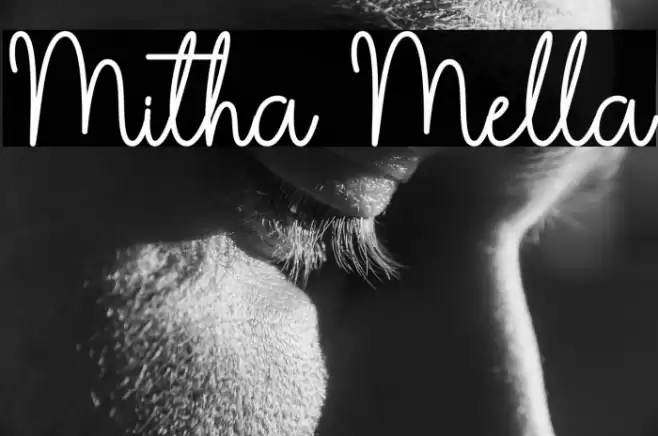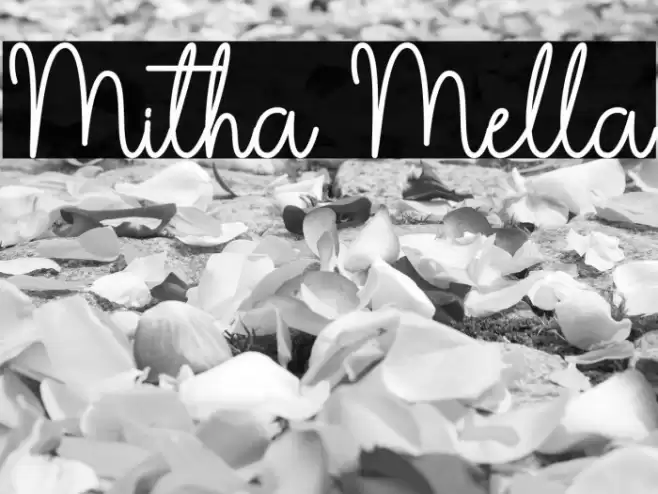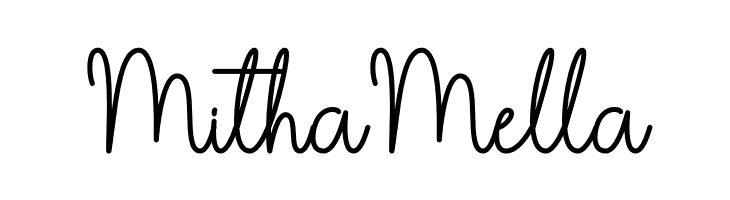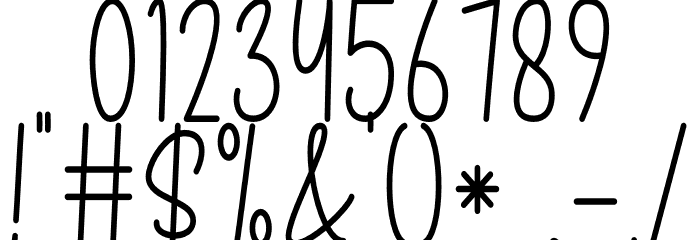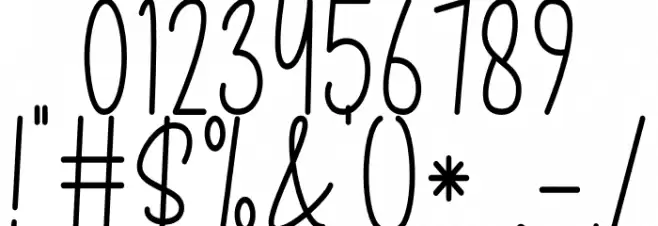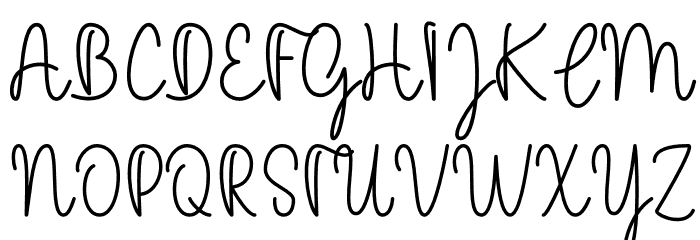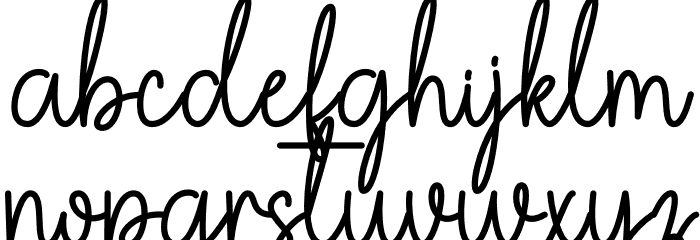
Mitha Mella Font
A playful, handwritten script font with tall, narrow letterforms and fluid, connected strokes. The characters have a casual, whimsical feel, with consistent stroke thickness and rounded terminals.
Tall, playful handwritten script with fluid connections from Uncategorized fonts.
- Proposed Projects: Greeting cards, invitations, social media graphics, branding for creative businesses, children's products.
- Width: Condensed
- Overall Style: Playful, Casual, Whimsical
- Use Case: Logos, Headlines, Invitations, Social media graphics